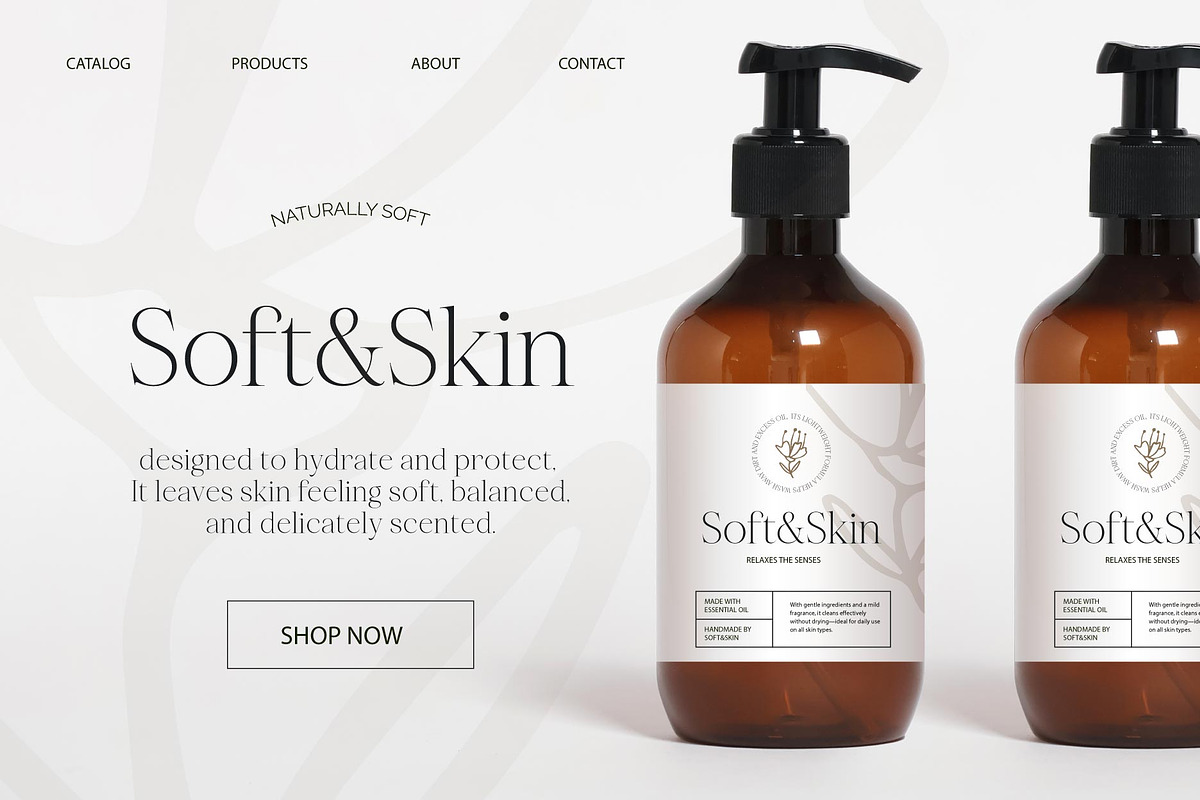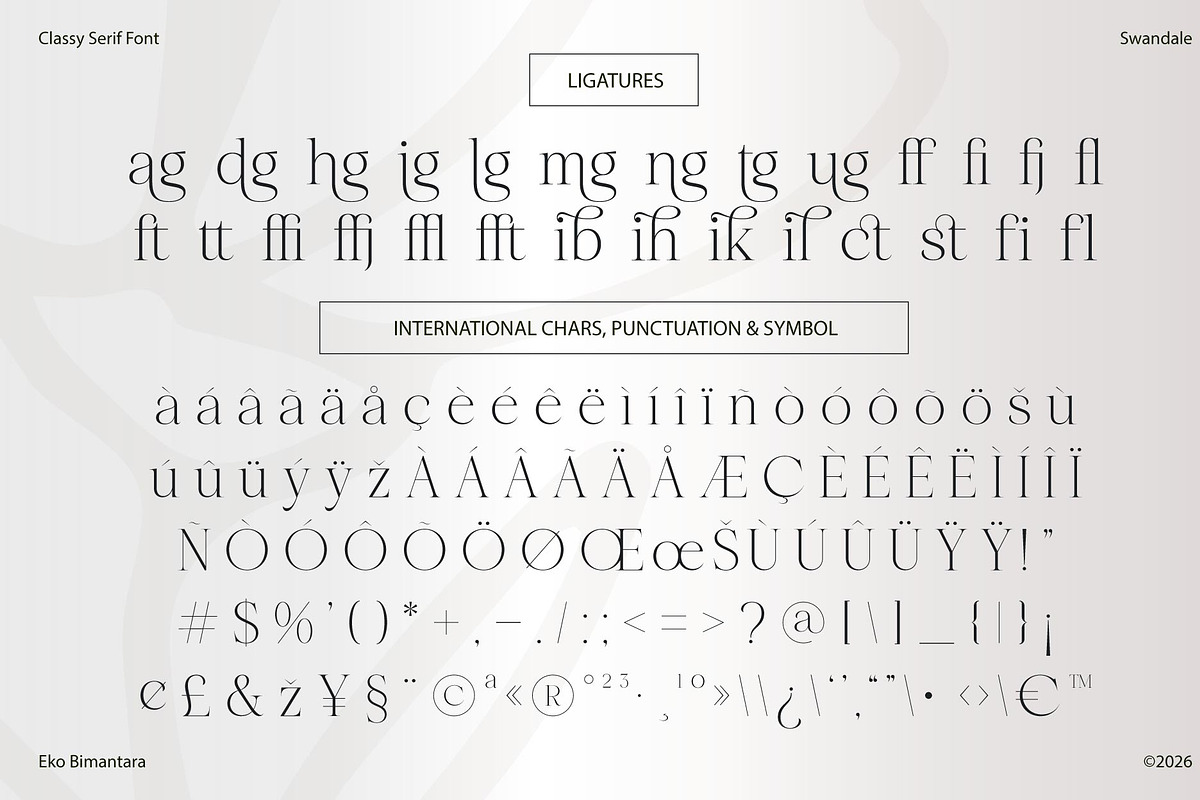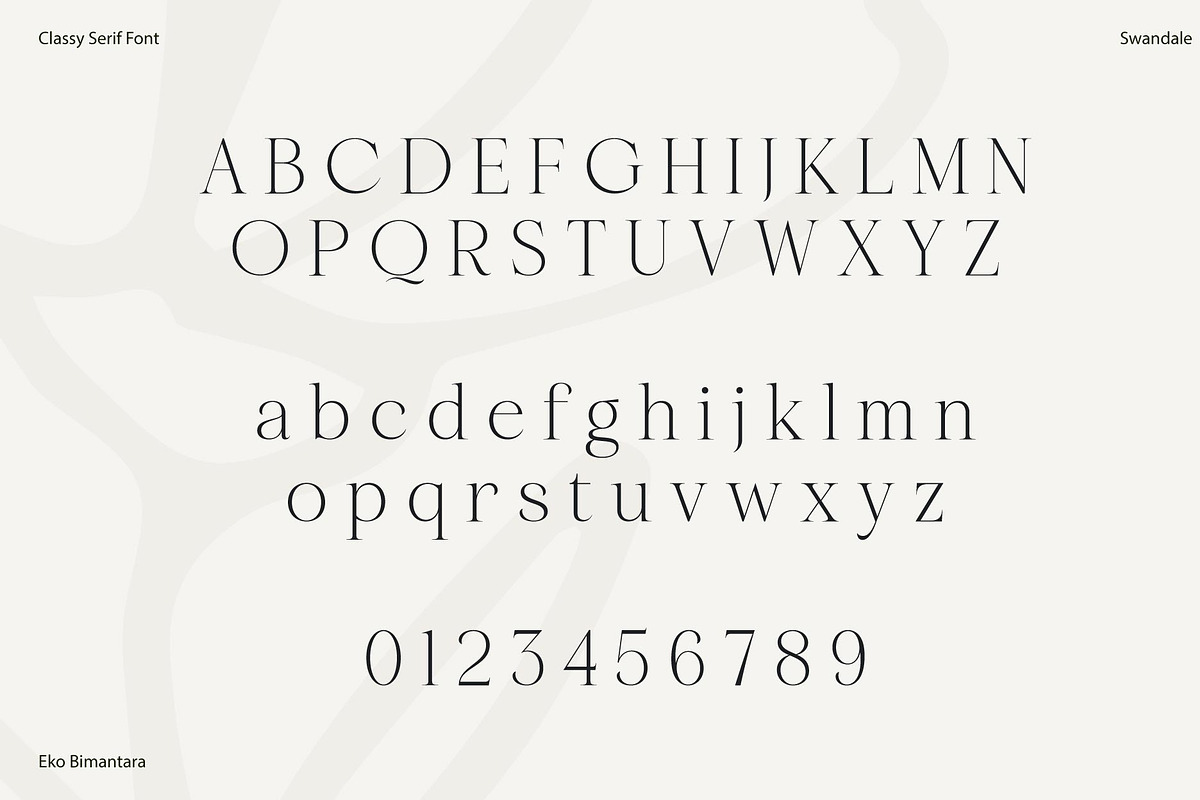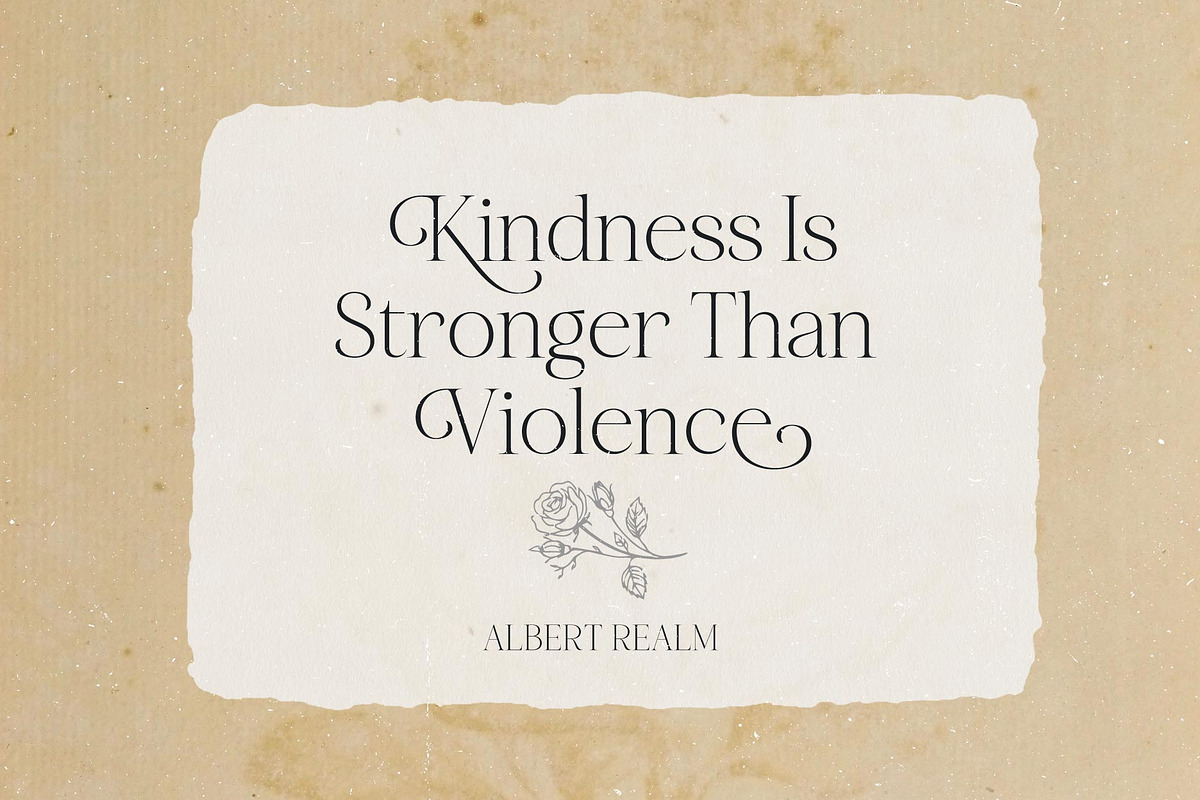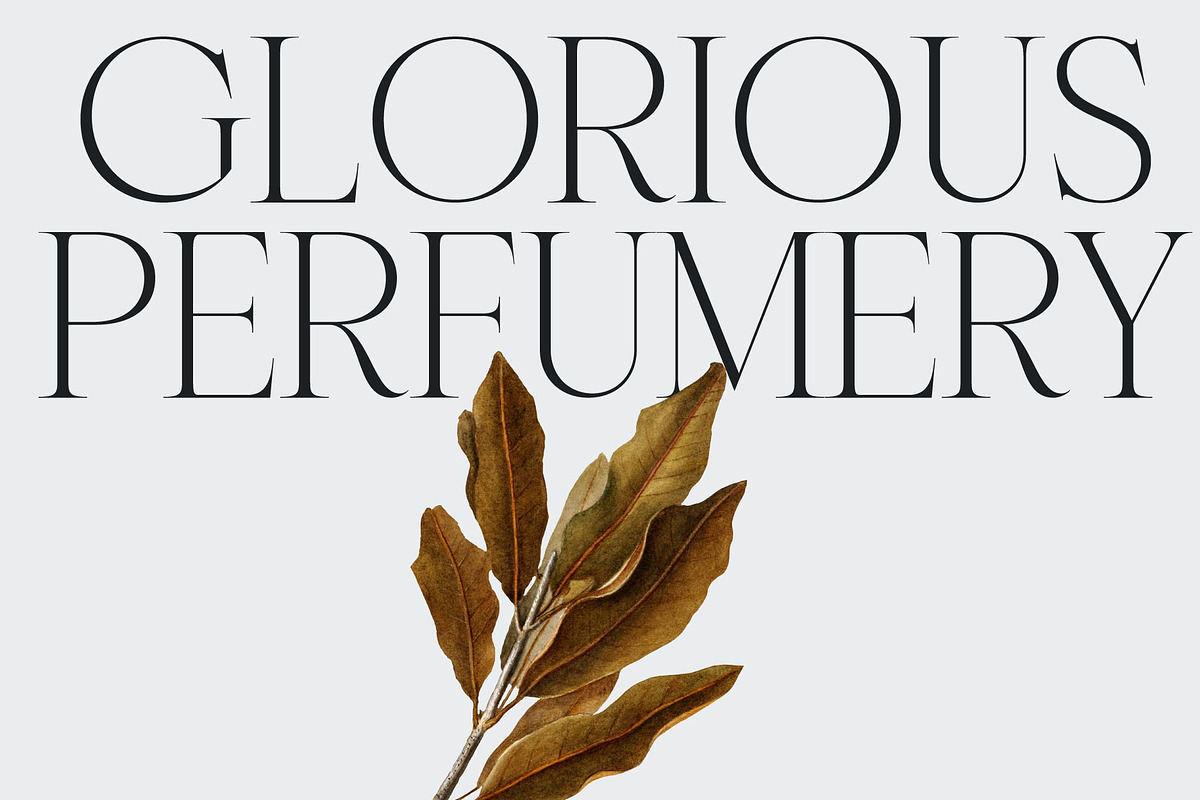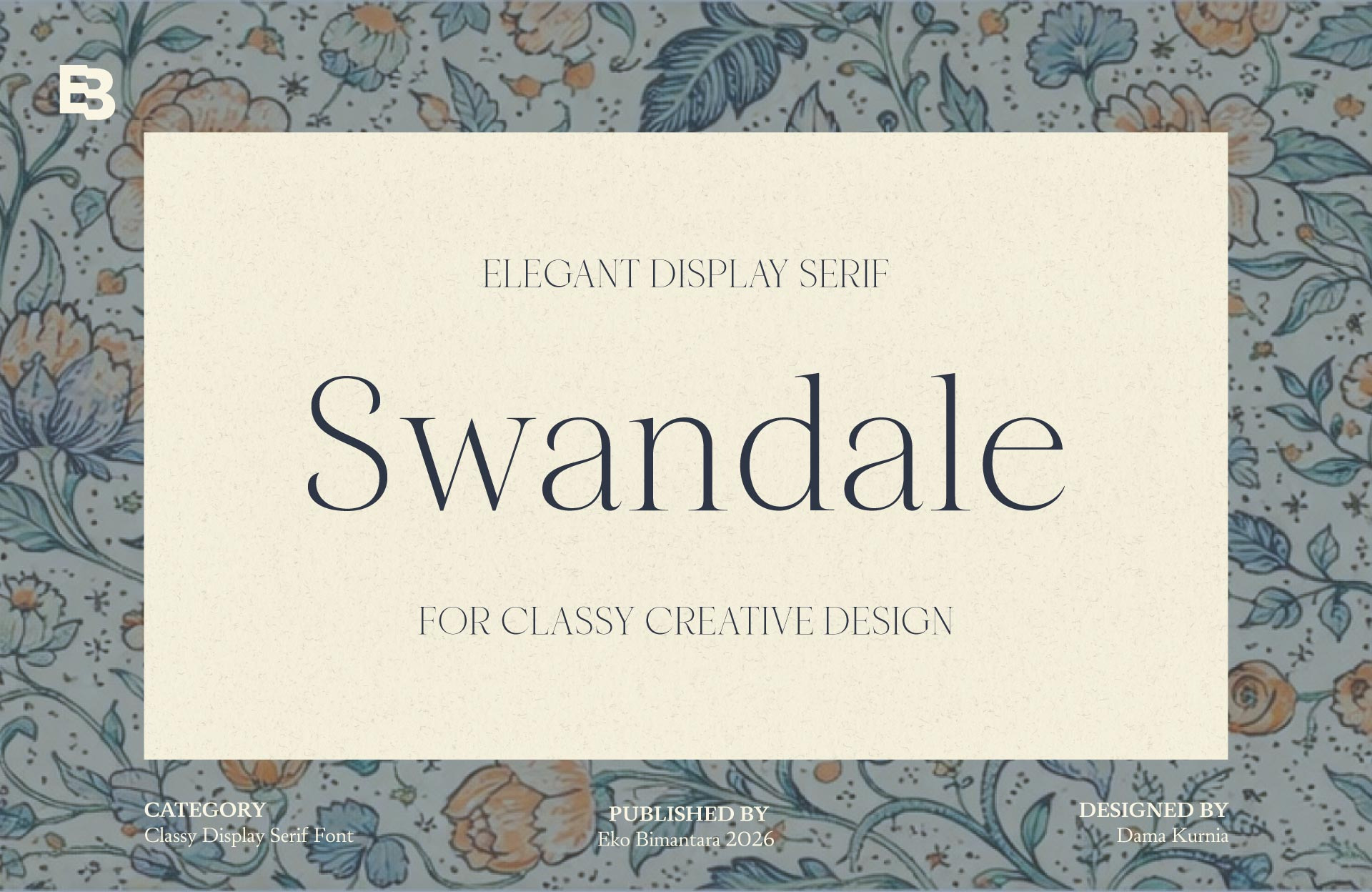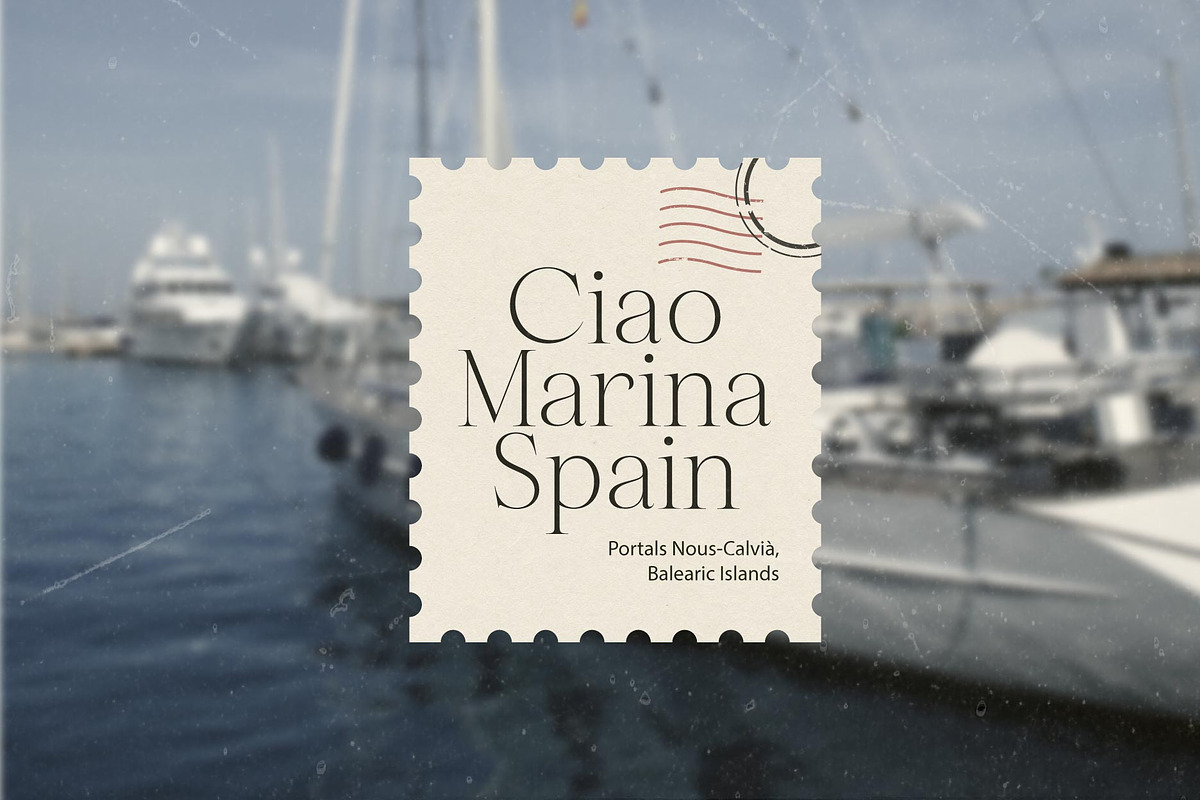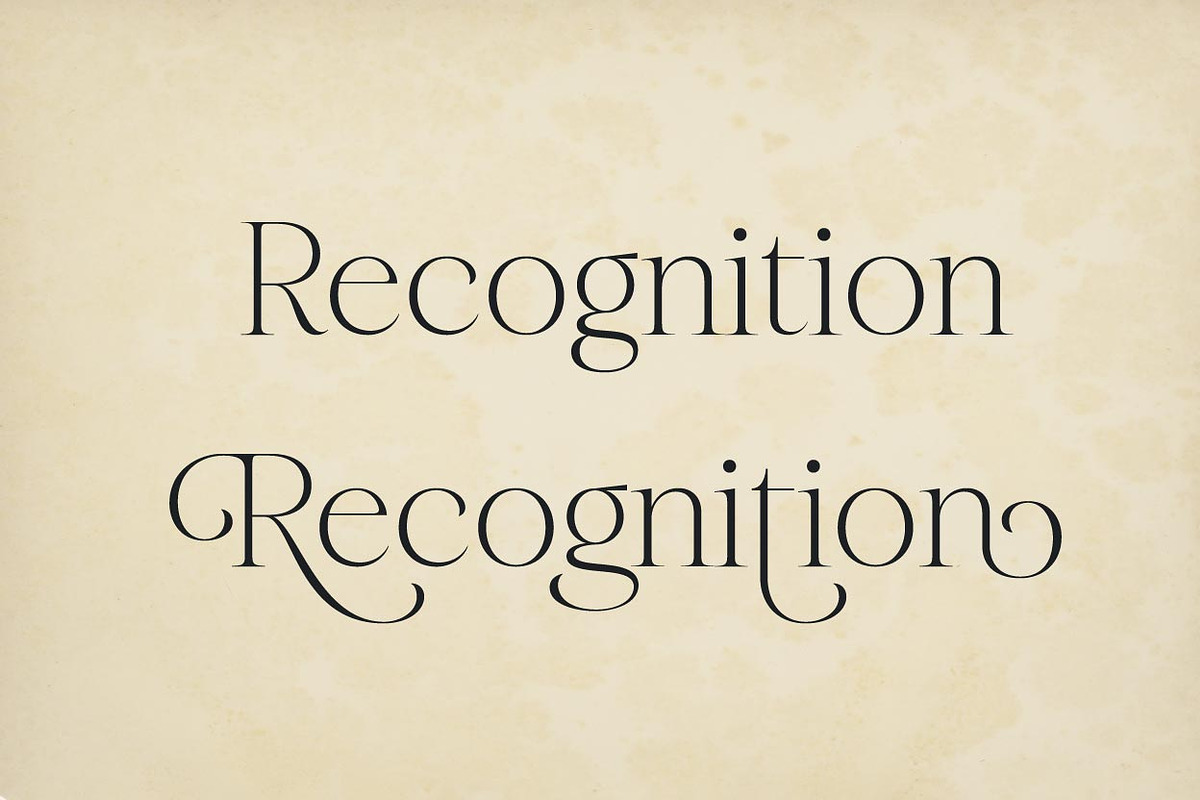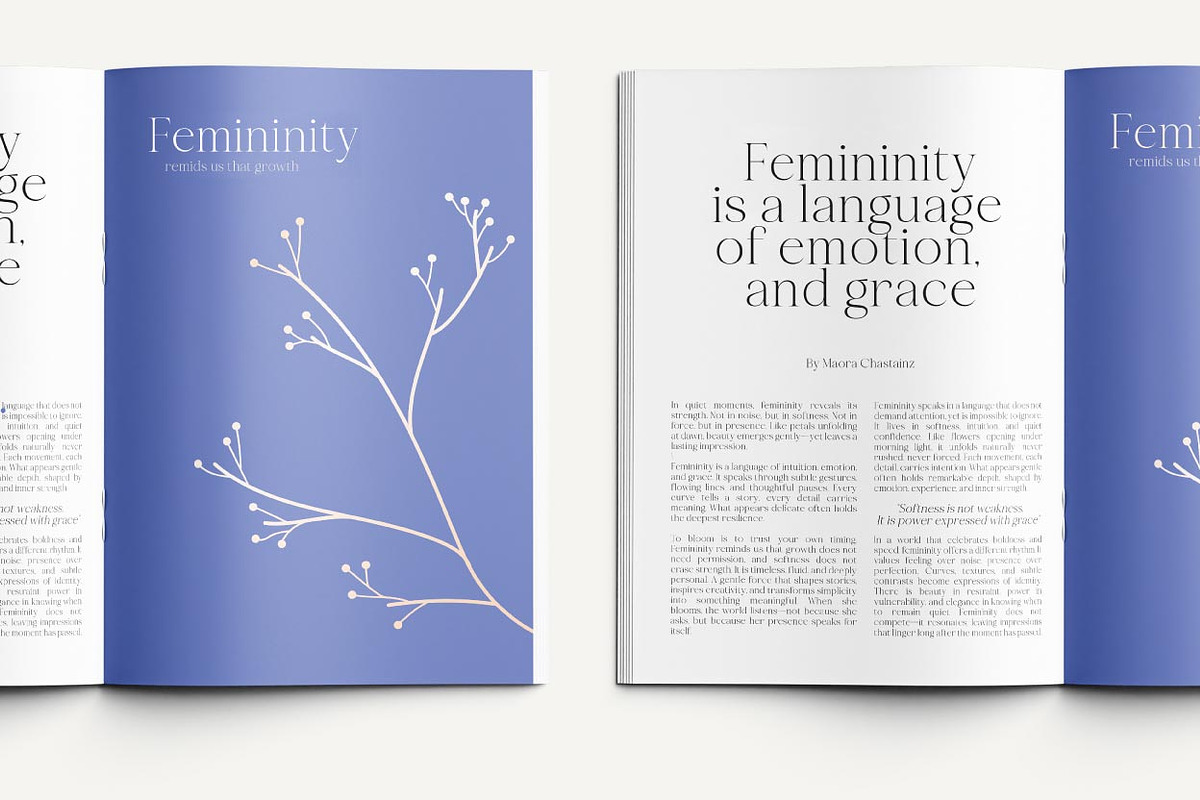
Swandale; Elegant Serif Font
Swandale is an elegant display serif typeface crafted with high contrast strokes and a smooth, clean outline that expresses beauty and refinement. Its graceful letterforms bring feminine character while maintaining a professional and polished appearance. Designed with ample OpenType features, Swandale allows flexible and expressive typography for creative projects. This typeface is beautifully suited for headings, beauty products, websites, branding, editorials, and various design purposes that require an elegant and charming visual presence.